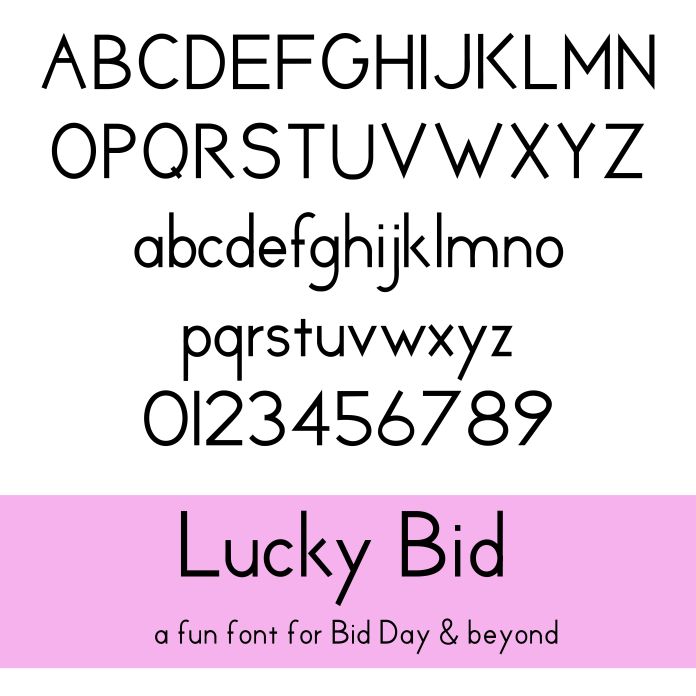
Lucky Bid is a playful and modern font designed with sorority rush season in mind! With its fun lettering and youthful vibe, it’s perfect for bid day tees, recruitment signs, social media graphics, and party decor. Whether you're creating standout chapter branding or crafting cute gifts, Lucky Bid brings the perfect blend of spirit and style.